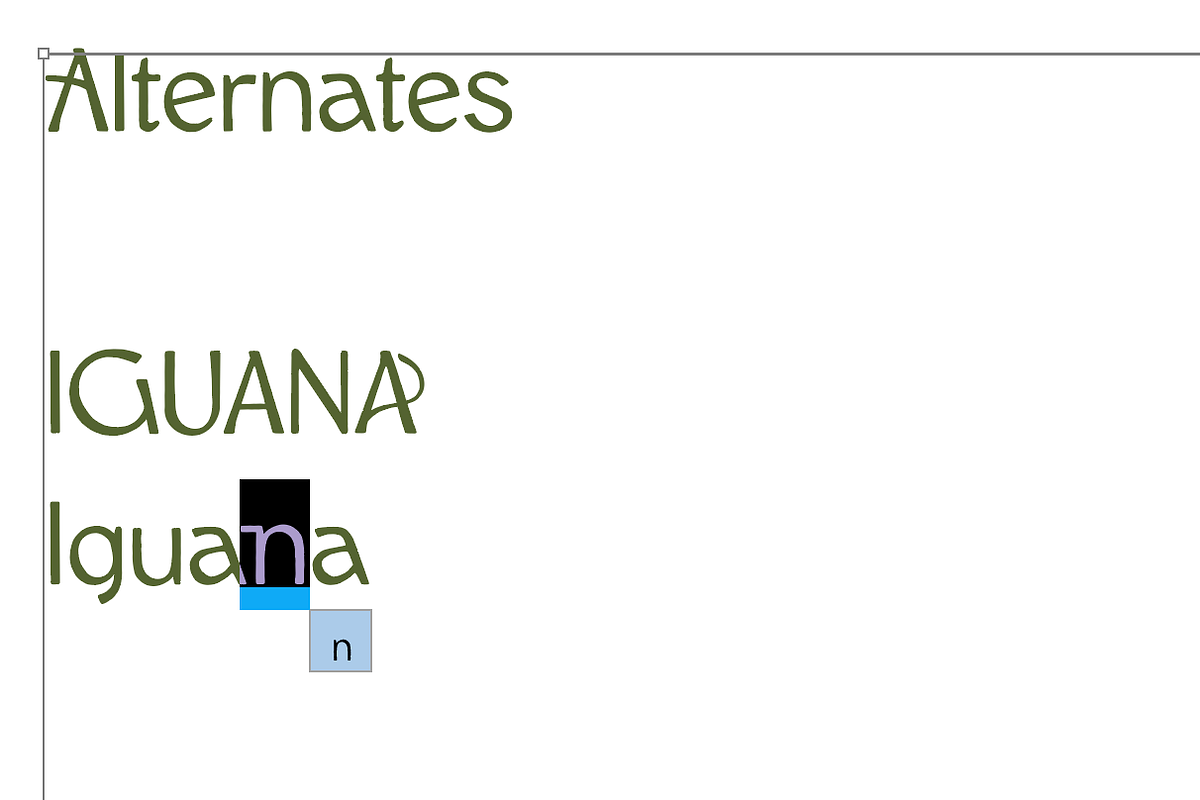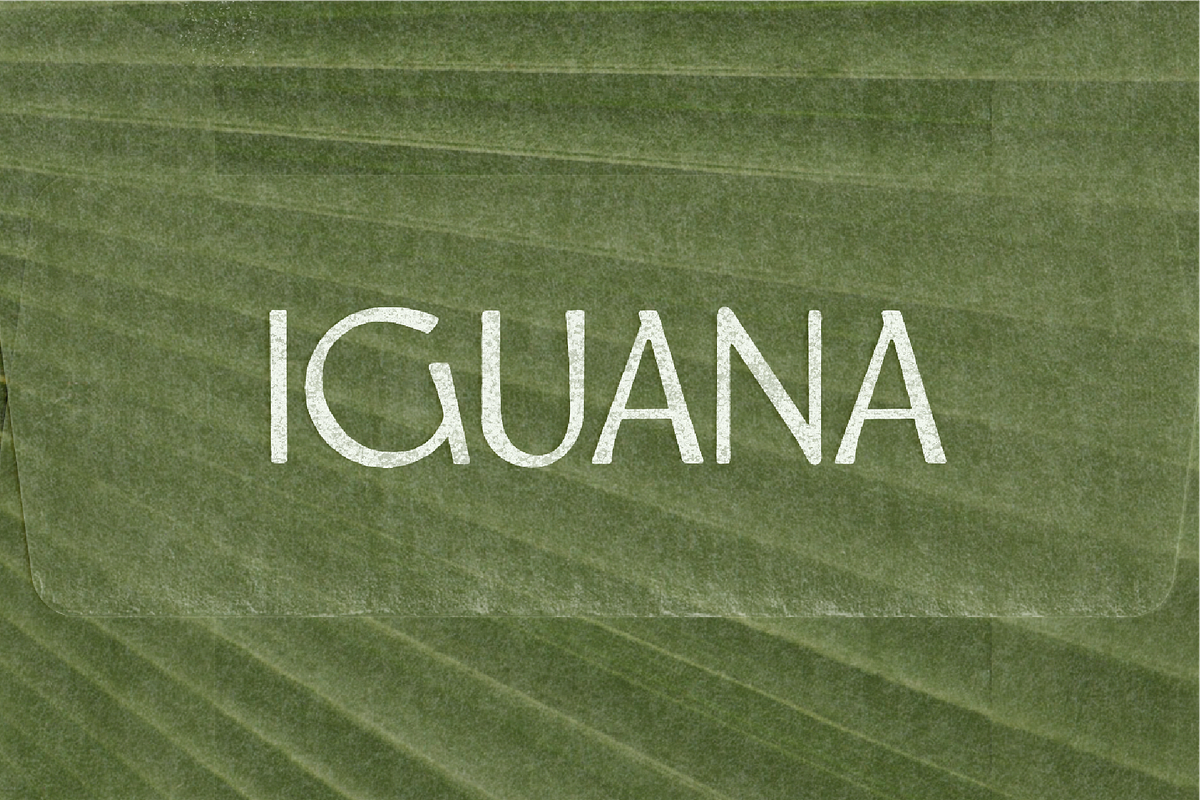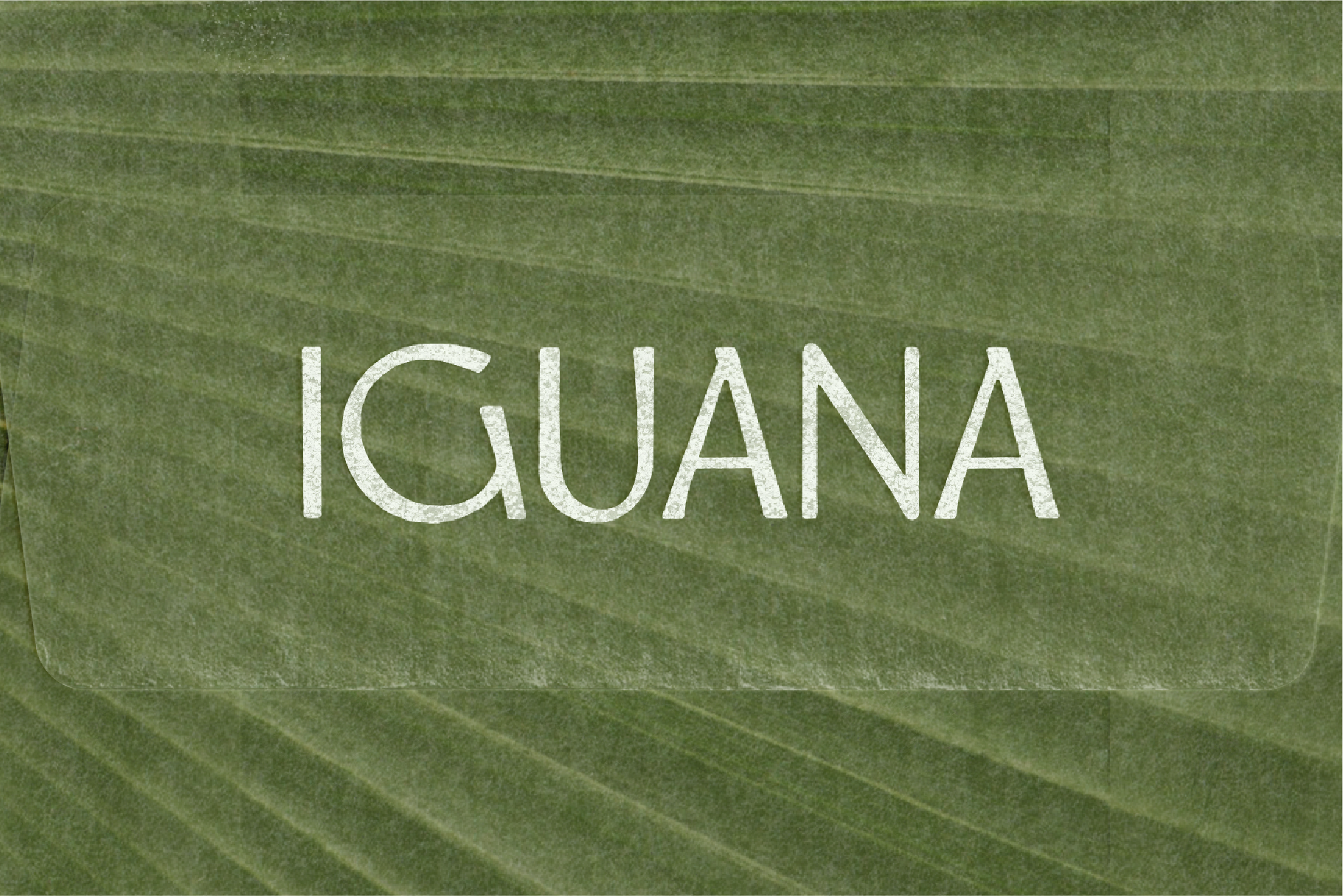
Iguana - Airy & Grounded Font by Meg
Iguana is a humanist sans-serif with gentle sweeping curves and subtle texture, designed to feel both airy and grounded. It captures bold rhythm with open forms and a modern sense of calm that is perfect for display type and short paragraphs.
Use Iguana by Meg Burk for hotels, coffee and matcha brands, fashion labels, and design-forward graphics that are fresh and confident.
Heatwave is the type foundry By Meg Burk. At Heatwave you will always find fonts that make a statement, no matter the content you type with them. Instant branding, vibes, and storytelling unfold with Heatwave by Meg Burk fonts. Each letter is carved with a reference to shape language found in nature. Curves like shells, texture like Iguana tails, and large shapes that feel like a vacation.